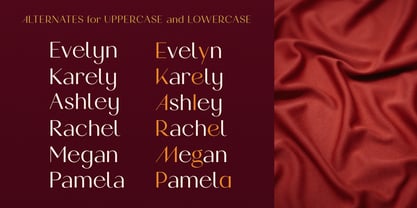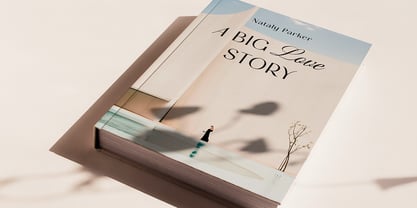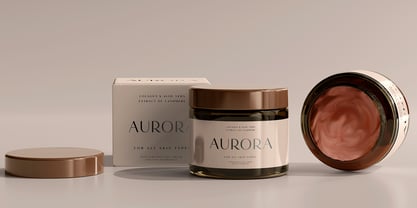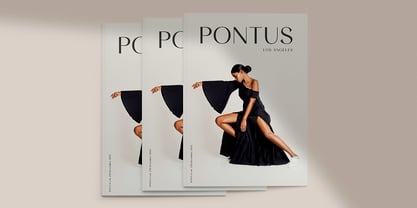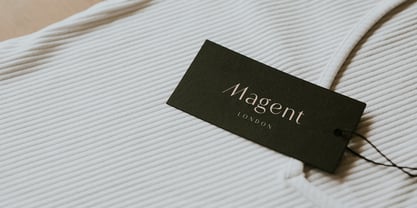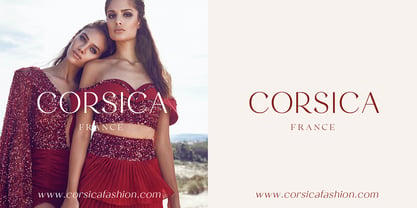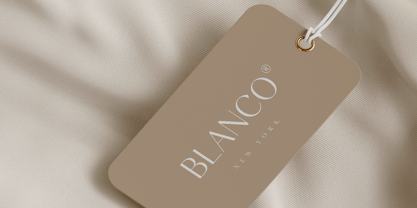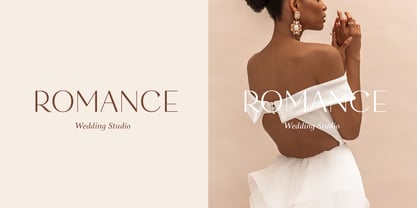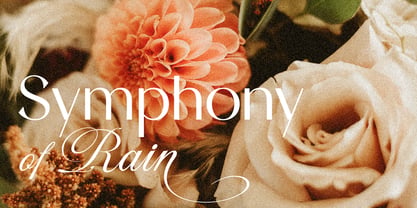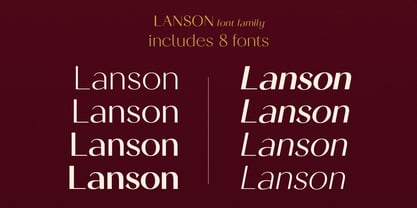
Lanson
Die Schriftfamilie Lanson wurde von Pavel Larin entworfen und von Larin Type Co veröffentlicht. Lanson enthält 8 Stile und Familienpaketoptionen. Mehr über diese Familie
Lanson is an elegant, modern, and expressive contrast sans-serif font family, and a great fashionable solution for your project. It includes upright and Italic style, each of them has four weights from light to bold. This is a multi-purpose font that is perfect for fashion project, it is contrasted, modern and easy to read. With it, you can create logos, banners, use in advertising, packaging, book covers and magazines, headings, descriptions and much more.